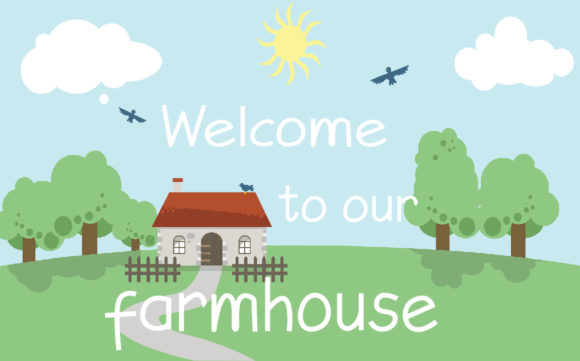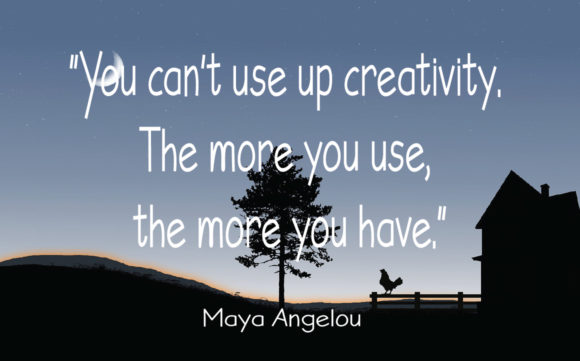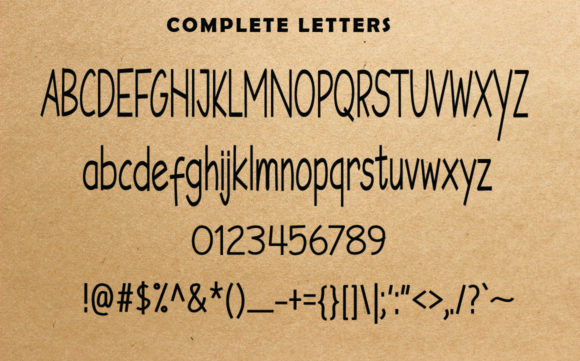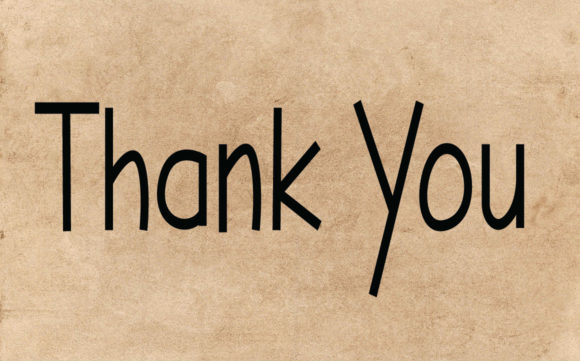
Introducing Farmhouse Font: The Sweet and Cute Handwritten Font for Your Creative Projects
Are you a designer, crafter, or DIY enthusiast looking for a font that can add a touch of warmth and personality to your projects? Look no further than Farmhouse Font, a sweet and cute handwritten font that’s perfect for a wide range of creative applications. In this article, we’ll explore the features and benefits of Farmhouse Font, and show you how it can elevate your designs to the next level.
Farmhouse Font is a beautiful, handwritten font that’s designed to evoke the feeling of a rustic farmhouse. With its natural and unique style, this font is incredibly fitting for a large pool of designs, from wall displays and wedding invitations to social media post logos, product packaging, labels, photography, and more. Whether you’re creating a DIY project, a professional design, or simply a fun craft, Farmhouse Font is the perfect choice.
So, what makes Farmhouse Font so special? Here are just a few of its key features:
- Handwritten style: Farmhouse Font has a beautiful, handwritten style that’s both sweet and cute.
- Natural and unique: The font’s natural and unique style makes it incredibly fitting for a wide range of designs.
- Versatile: Farmhouse Font is perfect for a variety of creative applications, from wall displays and wedding invitations to social media post logos, product packaging, labels, photography, and more.
- Easily readable: The font is easy to read, making it perfect for both digital and print applications.
Uses for Farmhouse Font
So, what can you use Farmhouse Font for? The possibilities are endless! Here are just a few ideas to get you started:
- Wall displays: Create beautiful wall displays with Farmhouse Font, perfect for adding a touch of personality to your home or office.
- Wedding invitations: Make your wedding invitations truly special with Farmhouse Font, a beautiful and romantic font that’s perfect for the big day.
- Social media post logos: Add a touch of personality to your social media posts with Farmhouse Font, perfect for creating eye-catching logos and graphics.
- Product packaging: Use Farmhouse Font to create beautiful and unique product packaging that stands out from the crowd.
- Labels: Create custom labels with Farmhouse Font, perfect for adding a touch of personality to your products or gifts.
- Photography: Use Farmhouse Font to add text and captions to your photos, creating beautiful and unique visual displays.
- Invitations: Create custom invitations with Farmhouse Font, perfect for parties, events, and more.
- Stationery: Use Farmhouse Font to create beautiful and unique stationery, perfect for letter writing or journaling.
Why Choose Farmhouse Font?
So, why choose Farmhouse Font for your creative projects? Here are just a few reasons:
- Unique style: Farmhouse Font has a unique and natural style that’s sure to make your designs stand out.
- Easy to use: The font is easy to read and use, making it perfect for both digital and print applications.
- Versatile: Farmhouse Font is perfect for a wide range of creative applications, from wall displays and wedding invitations to social media post logos, product packaging, labels, photography, and more.
- High-quality: Farmhouse Font is a high-quality font that’s designed to deliver exceptional results.
| Author | Farz Studio |
In conclusion, Farmhouse Font is a sweet and cute handwritten font that’s perfect for a wide range of creative projects. With its natural and unique style, this font is incredibly fitting for wall displays, wedding invitations, social media post logos, product packaging, labels, photography, invitations, stationery, and more. Whether you’re a designer, crafter, or DIY enthusiast, Farmhouse Font is the perfect choice for adding a touch of warmth and personality to your designs.